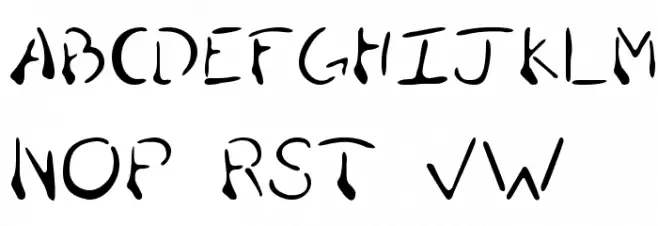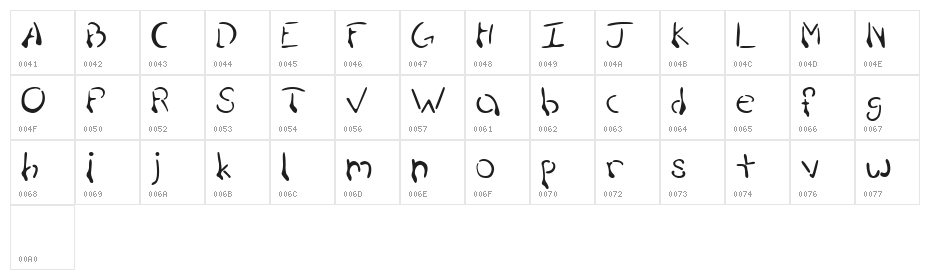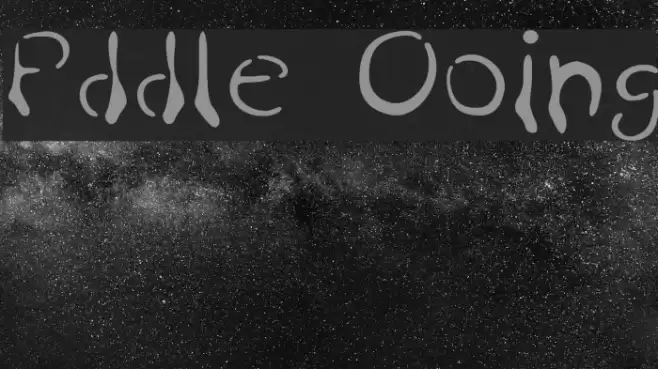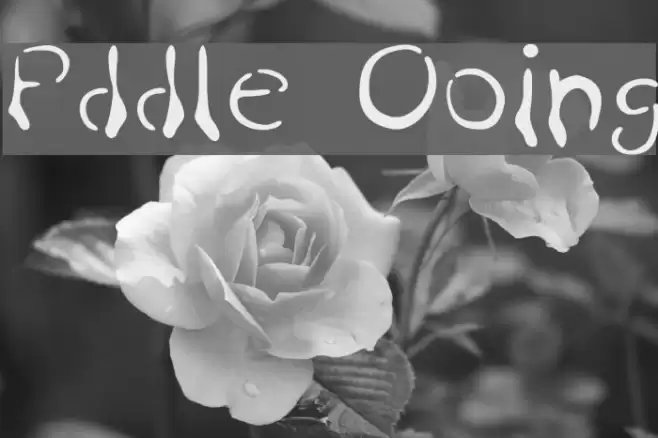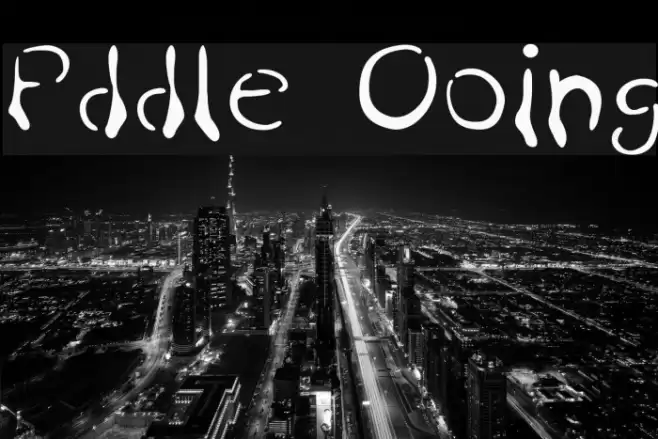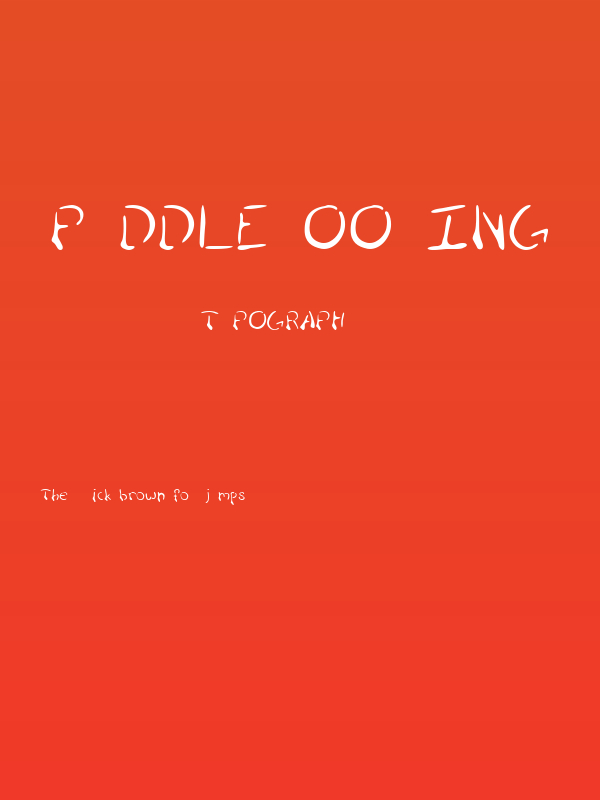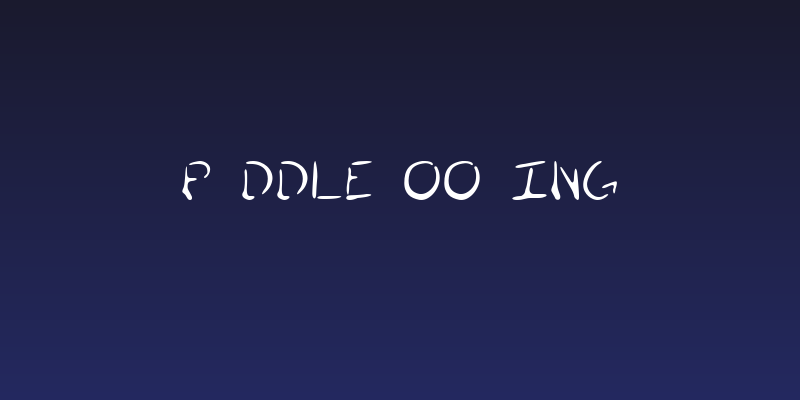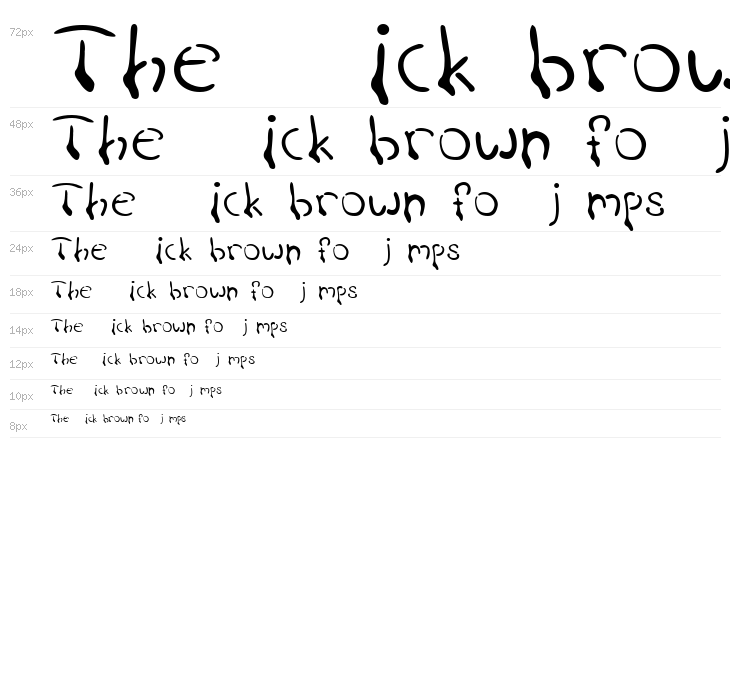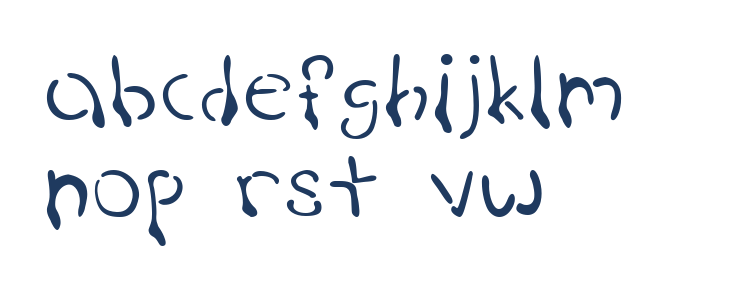
Puddle Oozing Font
Puddle Oozing Description
This font features a unique and playful design, reminiscent of liquid or melted forms, giving it an organic and fluid appearance. The characters have irregular shapes and varying thicknesses, creating a dynamic and whimsical look. The strokes are uneven, with some parts appearing thicker and others thinner, enhancing the impression of movement and flow. This style is particularly eye-catching and can add a creative touch to any project. The font maintains legibility while offering a distinctive artistic flair, making it suitable for creative and informal applications.
| Use Case | Headlines, Logos, Artistic designs |
| Proposed Projects | Ideal for creative projects such as children's book covers, playful branding, event posters, and artistic designs. |